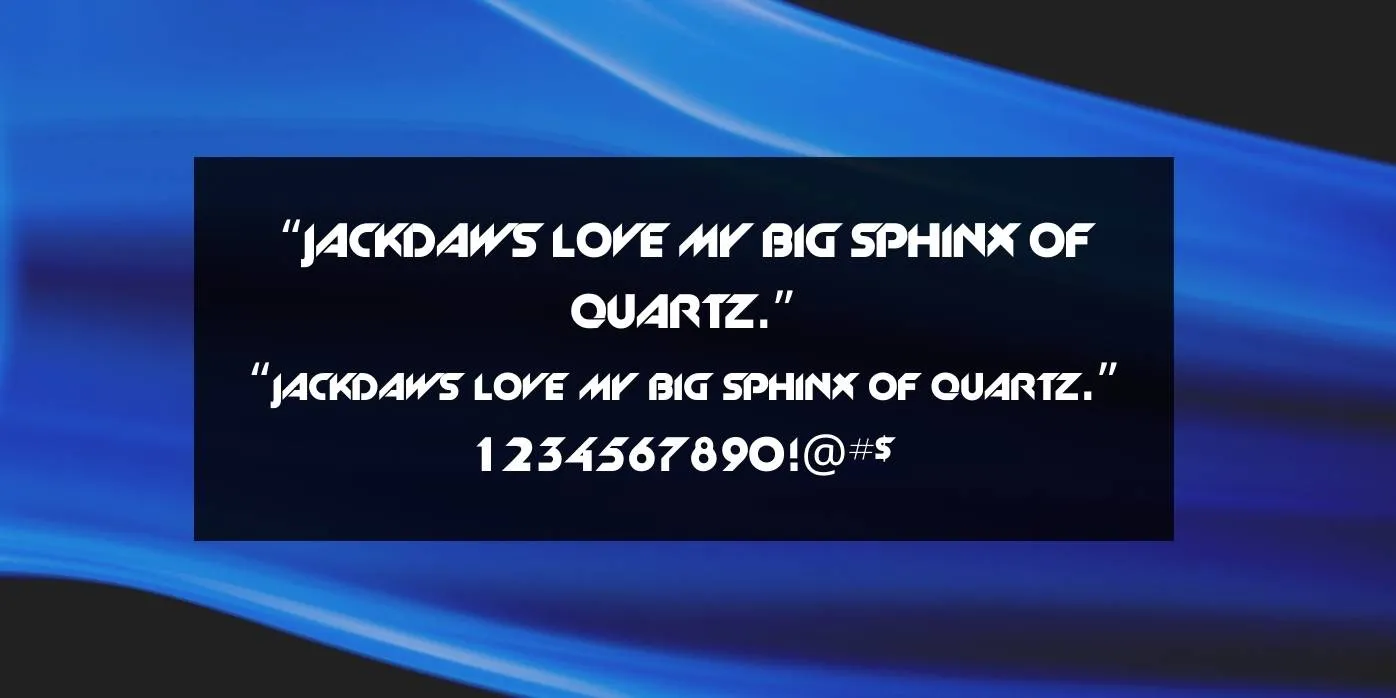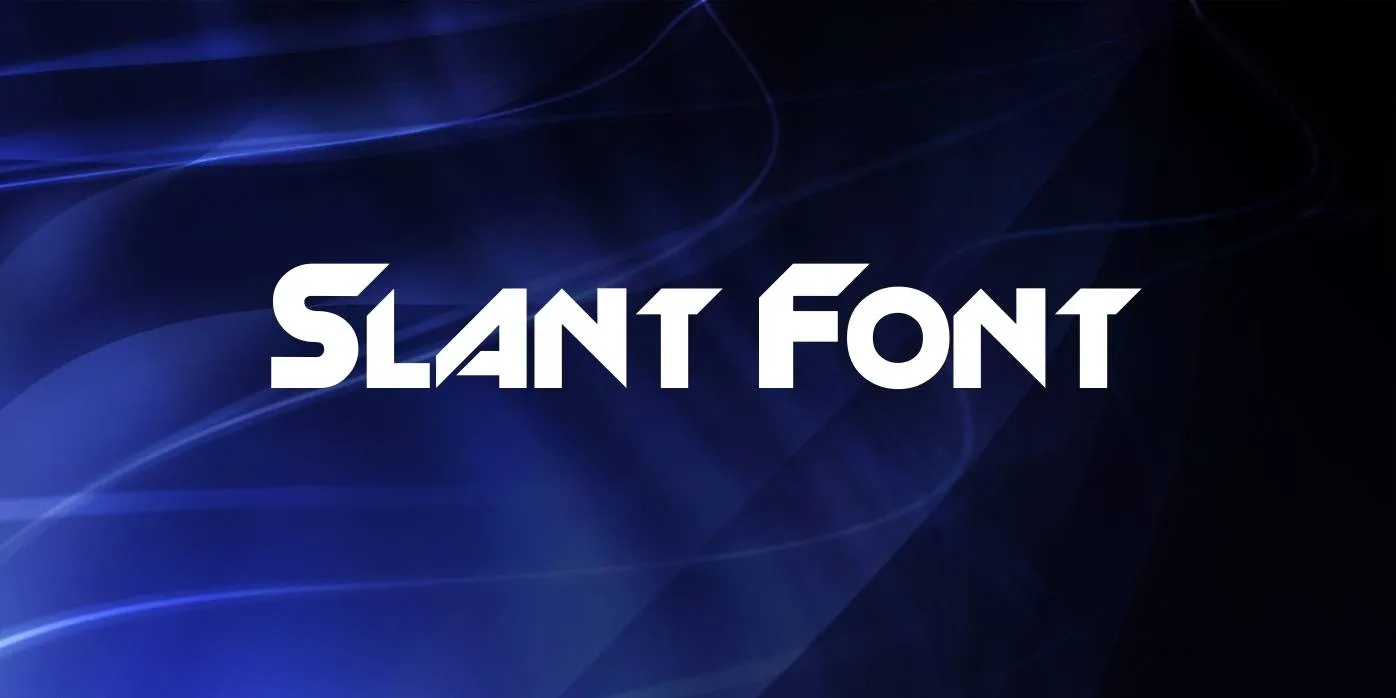
Slant Font
Here, we are going to introduce a stylish typeface that is known as Slant Font. This family belongs to the Techno typeface.  It was created by Billy Argel in the year 1997. It is famous for use in Adobe Photoshop, Adobe Illustrator, and Canva. The designer has taken the inspiration for this unique font from the techno genre.
Slant Font is widely used in various branding and advertising projects. Moreover, it is also perfect for headlines, titles, and short texts. This amazing typeface comes in two styles including Regular and Bold. It is well specified for the CSS.
On the other hand, Slant Font is also quite legible which makes it a great choice for body text. Its generator tool is suitable for various designs.